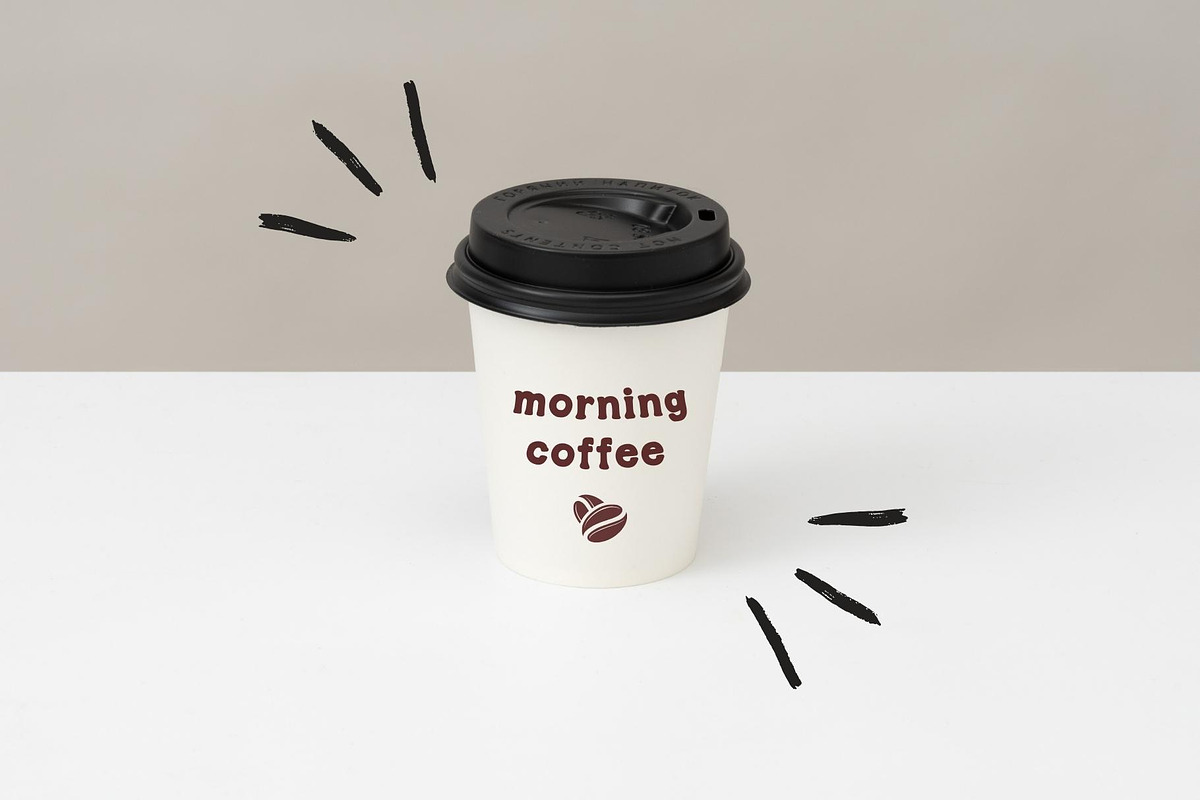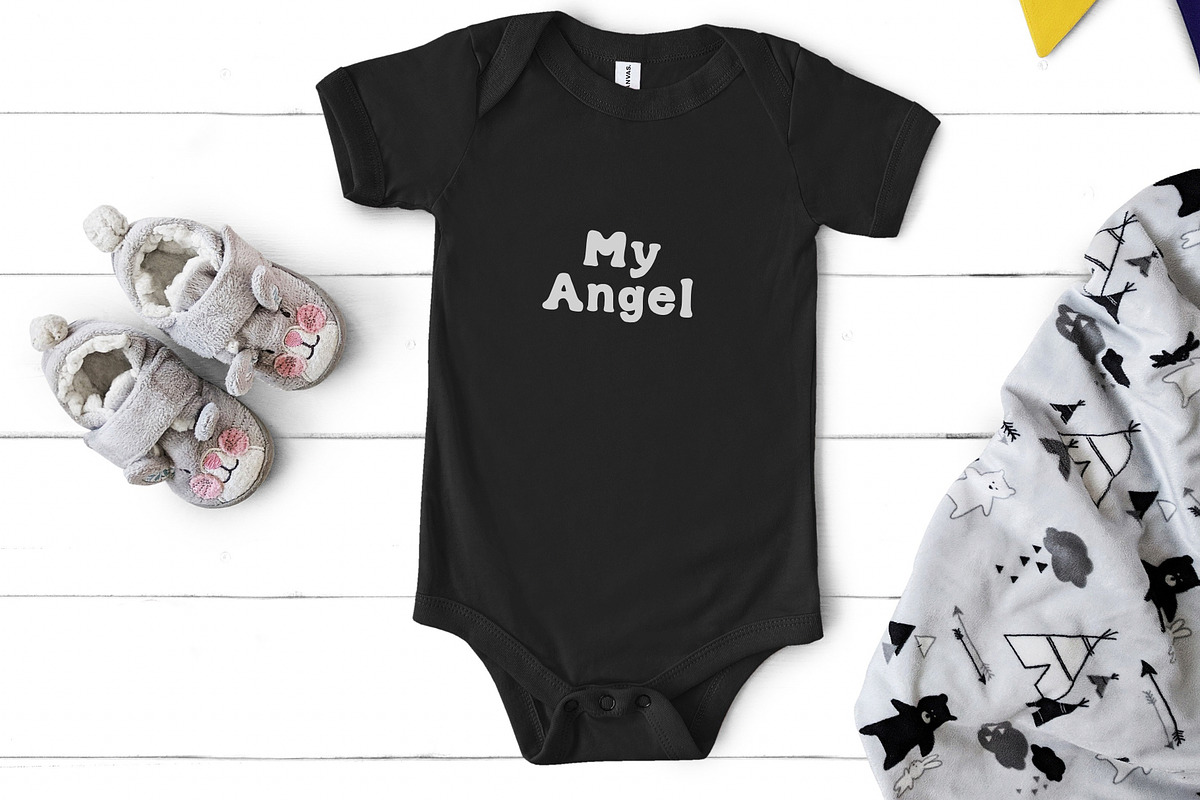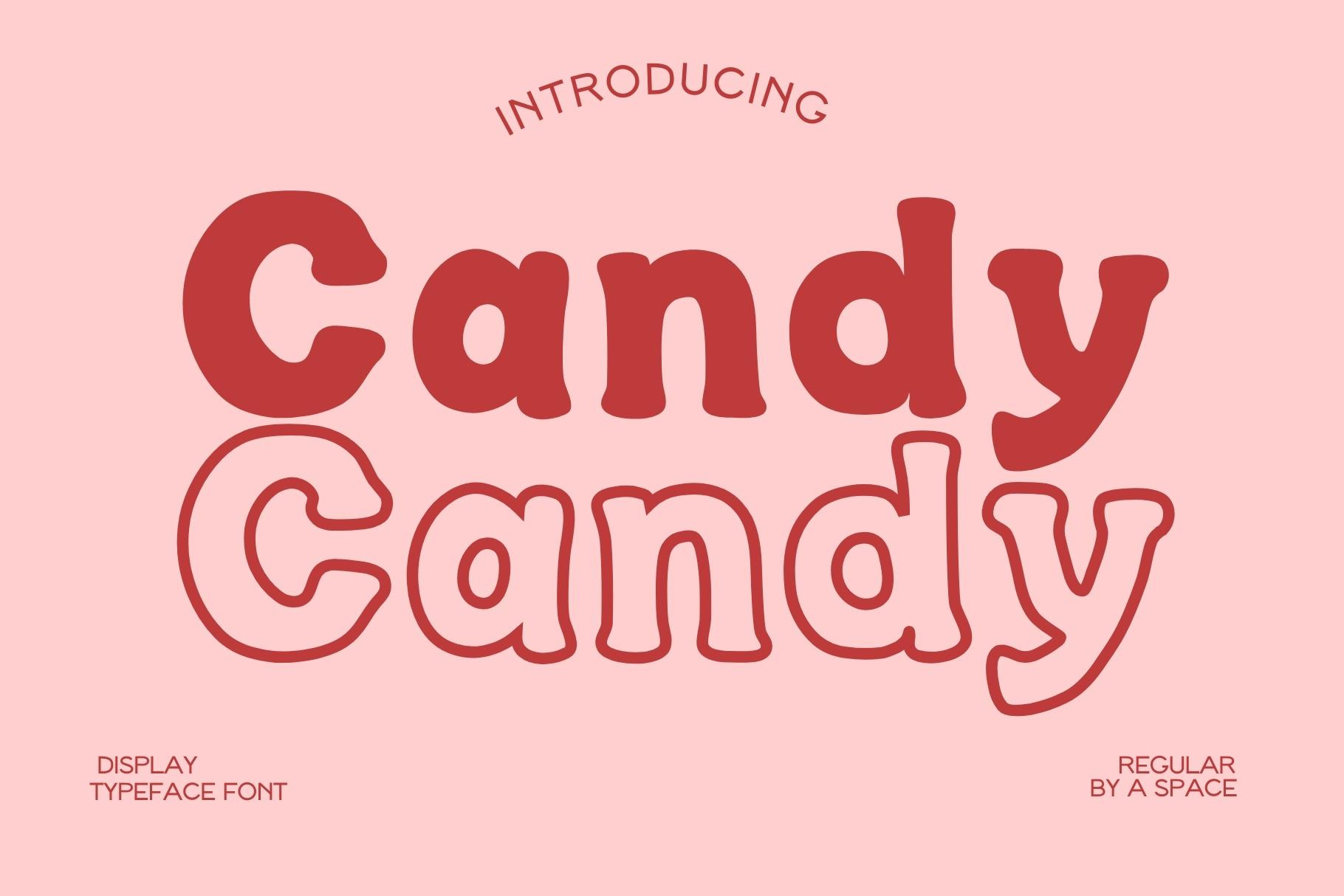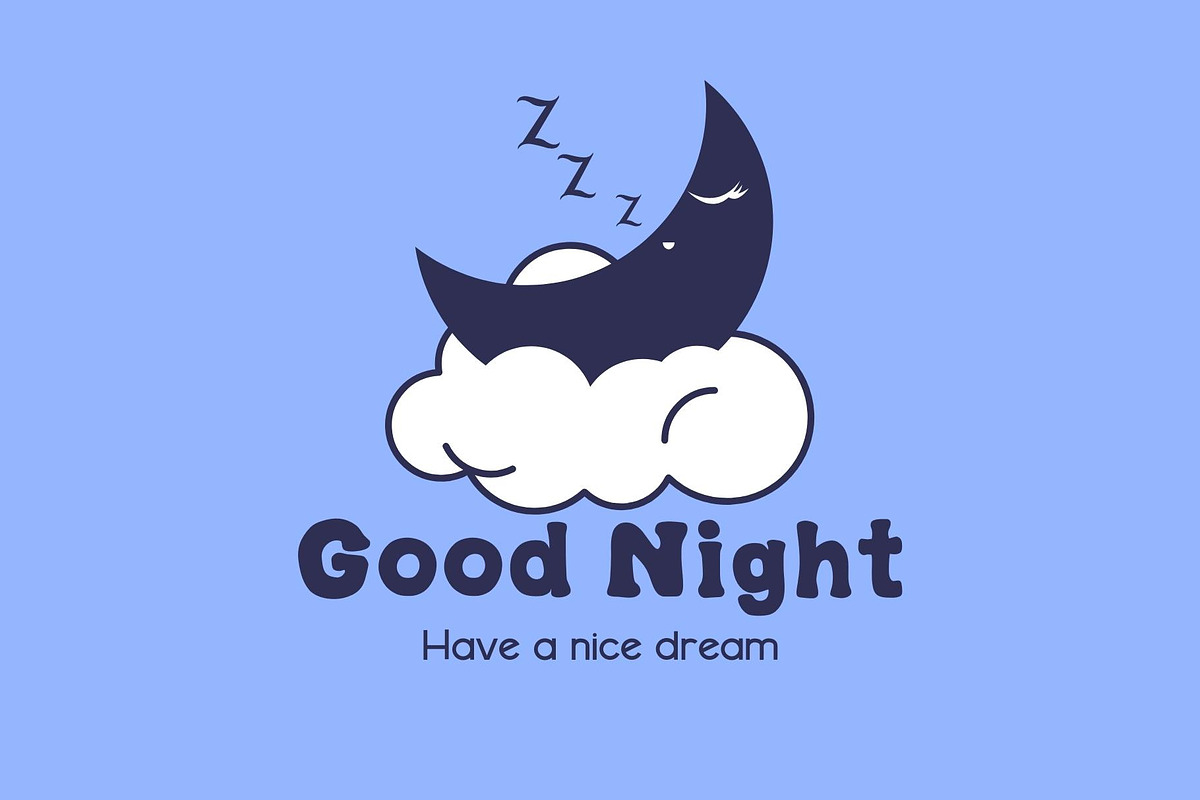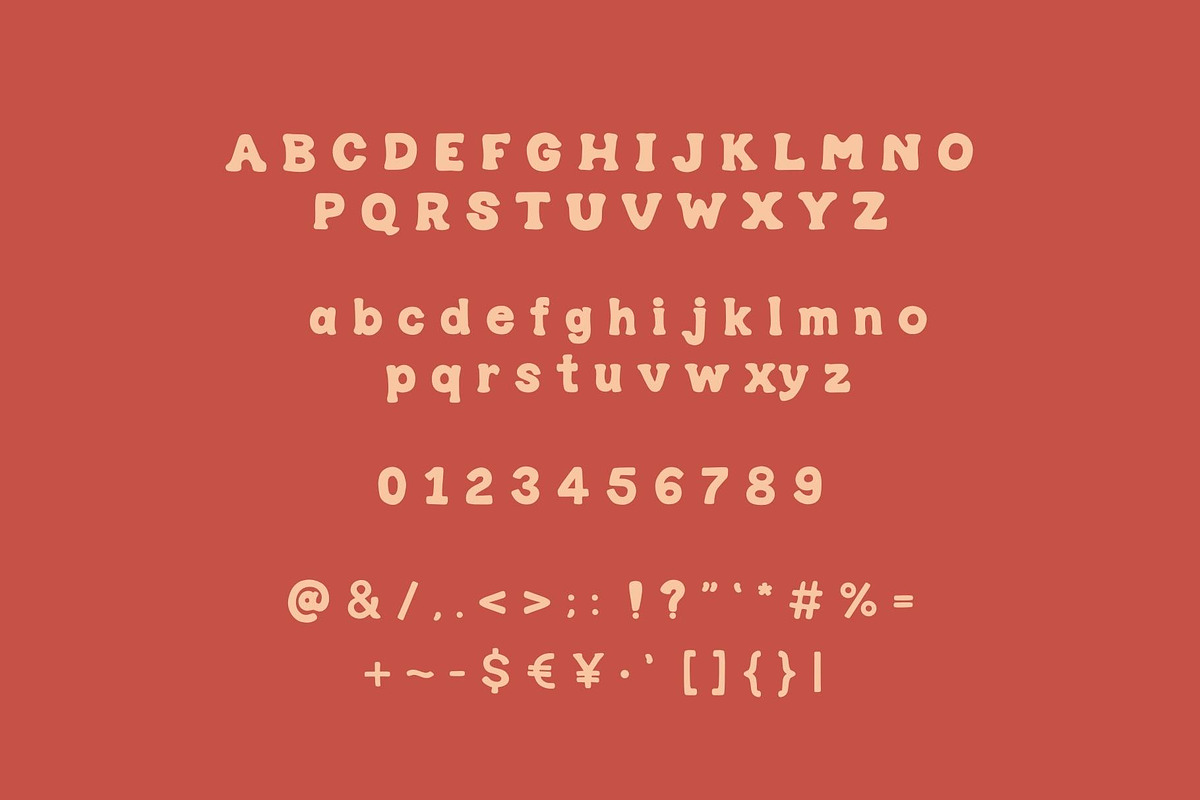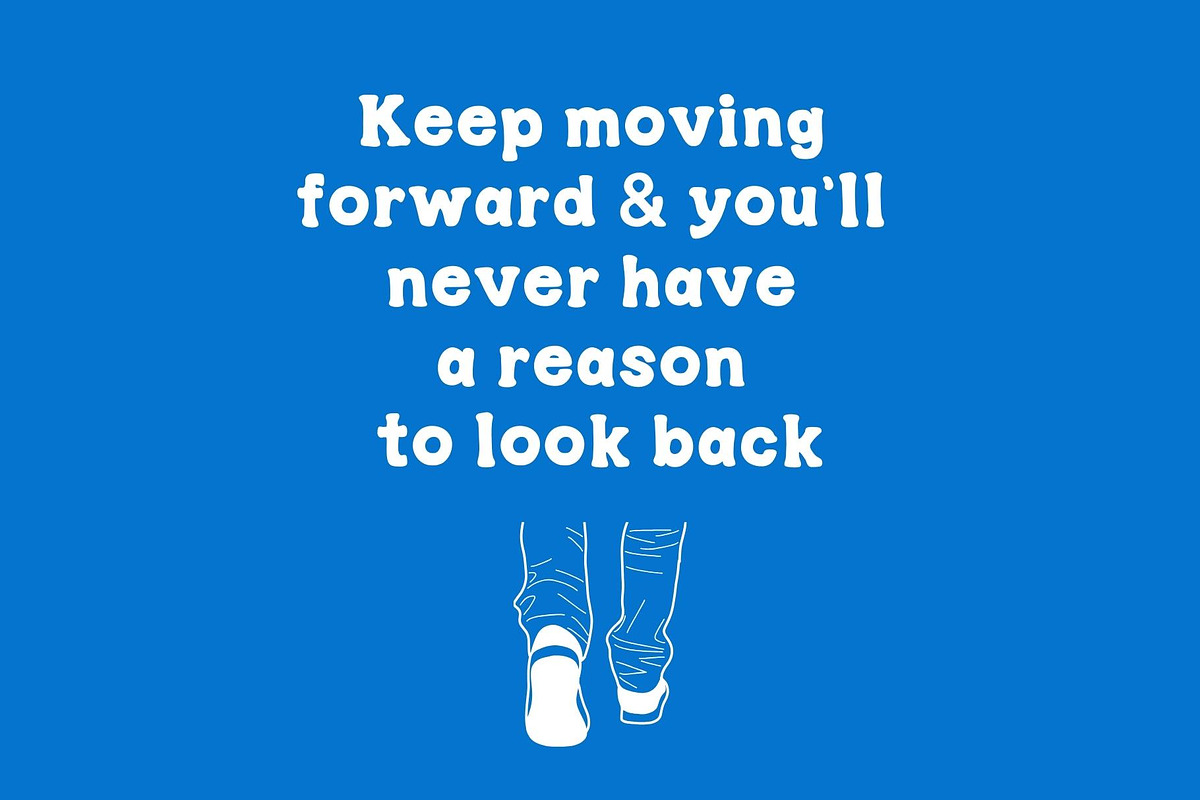
Candy Candy - Display Font
Candy Candy Font is bold font. This font can be used for anything such as shirt designs, cards, art, quotes, social media and so much more!